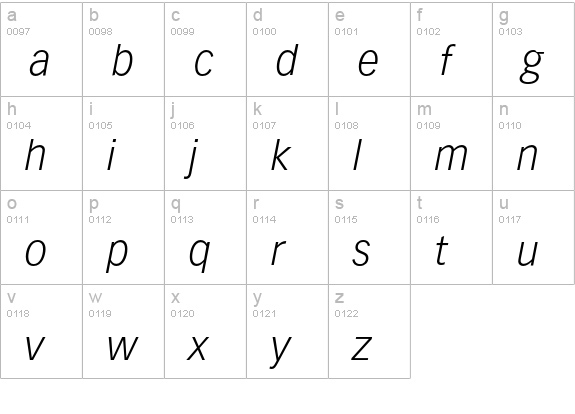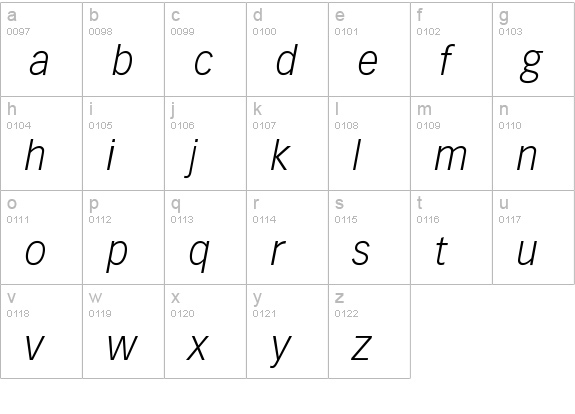
Vectora LH 46 Light Italic Font Details
Vectora LH 46 Light Italic is a refined, elegant, italic variant in the Vectora typeface family \xE2\x80\x94 well suited to elegant body text, refined sub-headings, and luxury branding.
Vectora LH 46 Light Italic is a stunning font that effortlessly combines elegance and functionality. With its sleek and refined design, this font is perfect for projects that require a touch of sophistication and professionalism. The light italic style of Vectora LH 46 adds a subtle yet distinctive flair to any text, making it visually appealing and engaging to read. This font is not only visually pleasing, but it also offers great versatility. Whether you're designing a logo, creating a website, or working on a print project, Vectora LH 46 Light Italic will effortlessly complement your work. Its clean and legible letterforms ensure that your message is conveyed clearly and effectively, while the italic style adds a touch of flair and individuality. One of the best things about Vectora LH 46 Light Italic is that it is freely available to download at FontsMarket.com. This means that you can easily access and use this font without any limitations. Whether you're a professional designer or a hobbyist, having access to high-quality fonts like Vectora LH 46 Light Italic can greatly enhance your creative projects. So why wait? Download Vectora LH 46 Light Italic today from FontsMarket.com and elevate your designs to the next level. With its elegant and versatile design, this font is sure to make a lasting impression on your audience. Don't miss out on the opportunity to use this beautiful font for free and take your work to new heights.